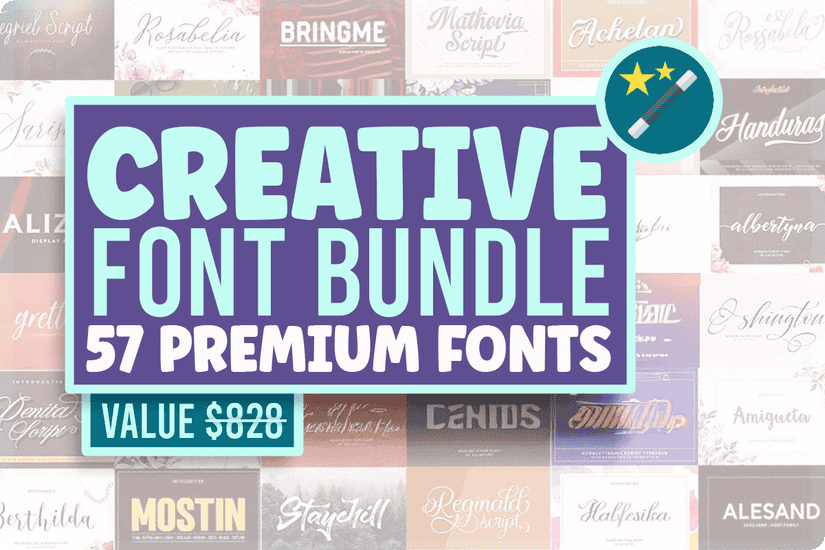
The Creative Font Bundle is a collection of 57 high-quality fonts and 1 bonus graphic, perfect for digital artists, crafters, and designers looking for stylish typography. With a mix of script, handwritten, sans serif, and display fonts, this bundle is a versatile resource for various creative projects, from branding to handmade crafts.
A Versatile Collection for Every Design Need
This bundle includes a range of font styles, giving you the flexibility to work on different projects with ease. Whether you need a modern script for elegant invitations, a bold sans serif for branding, or a handwritten font for casual designs, this collection has something for every designer.
Premium Fonts Included in the Bundle
This collection features a variety of script, handwritten, and sans serif fonts, ensuring you always have the perfect typeface for your project.
Elegant & Stylish Script Fonts
- Antura – A smooth, sophisticated script font
- Lovesmith – Romantic and flowing cursive lettering
- Belsani – Delicate calligraphy with a refined touch
- Rosabelia – A timeless and artistic handwritten script
Modern Handwritten Fonts
- Stay Classy – A chic and minimal handwritten font
- Granelly – Playful and casual with natural brush strokes
- Federica – A friendly, artistic handwriting font
- Virmana – A warm, hand-drawn style perfect for crafts
Bold & Versatile Sans Serif Fonts
- Mostin – A modern, clean sans serif
- Alesand – A stylish, professional sans serif font
- Lunarie – A bold display font with strong character
- Bringme – An eye-catching typeface for headlines and banners
Decorative & Unique Fonts
- Surprise Party – A fun, playful typeface
- Gistela – An elegant, swirly script for creative designs
- Khalifah – A sophisticated, ornamental font with a luxurious feel
- Monlesia – A soft, flowing script for personalized projects
Each font has been crafted to maintain high readability and smooth curves, ensuring they work seamlessly across different platforms.
- Diverse Font Selection – Includes scripts, sans serif, and handwritten fonts for any project